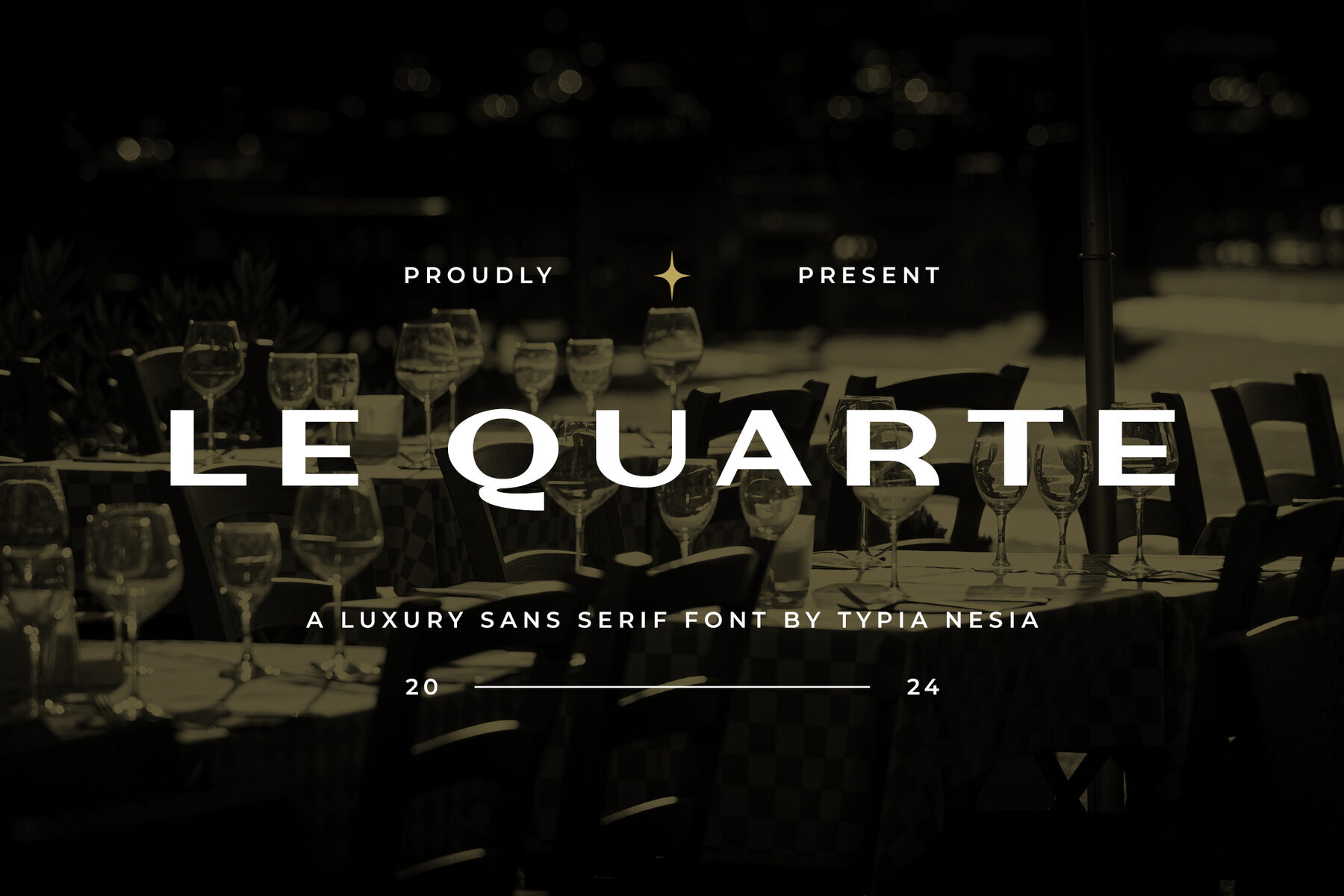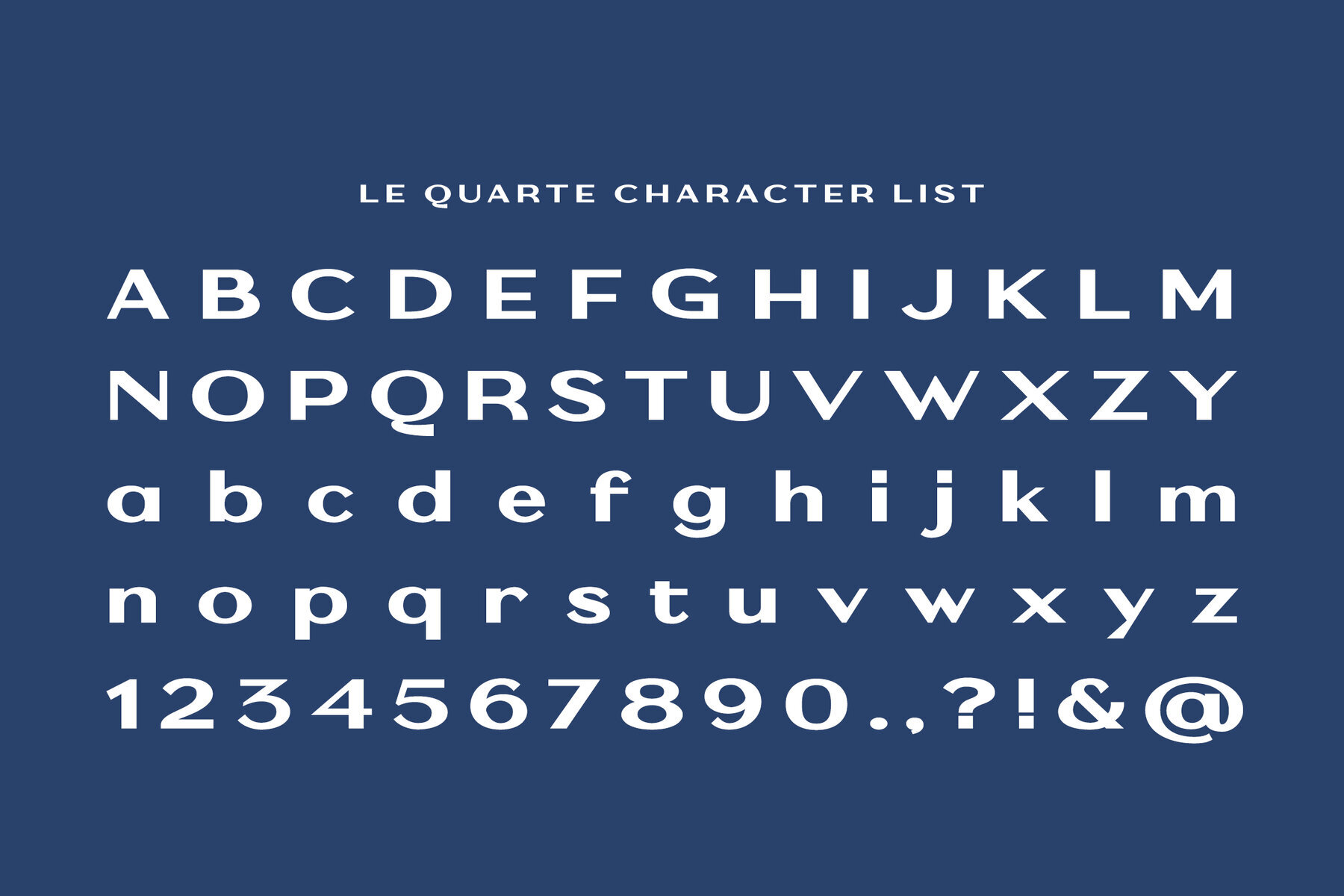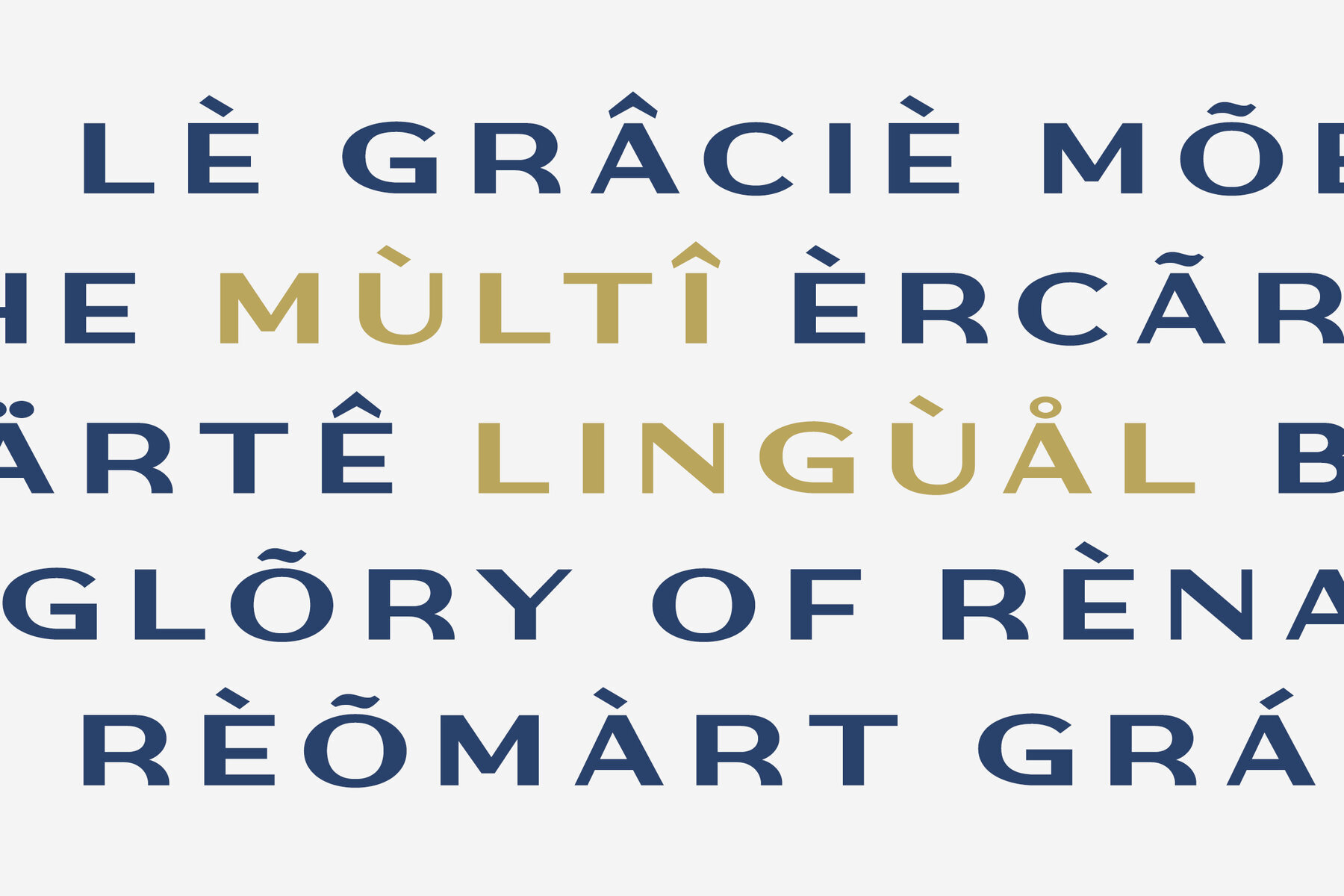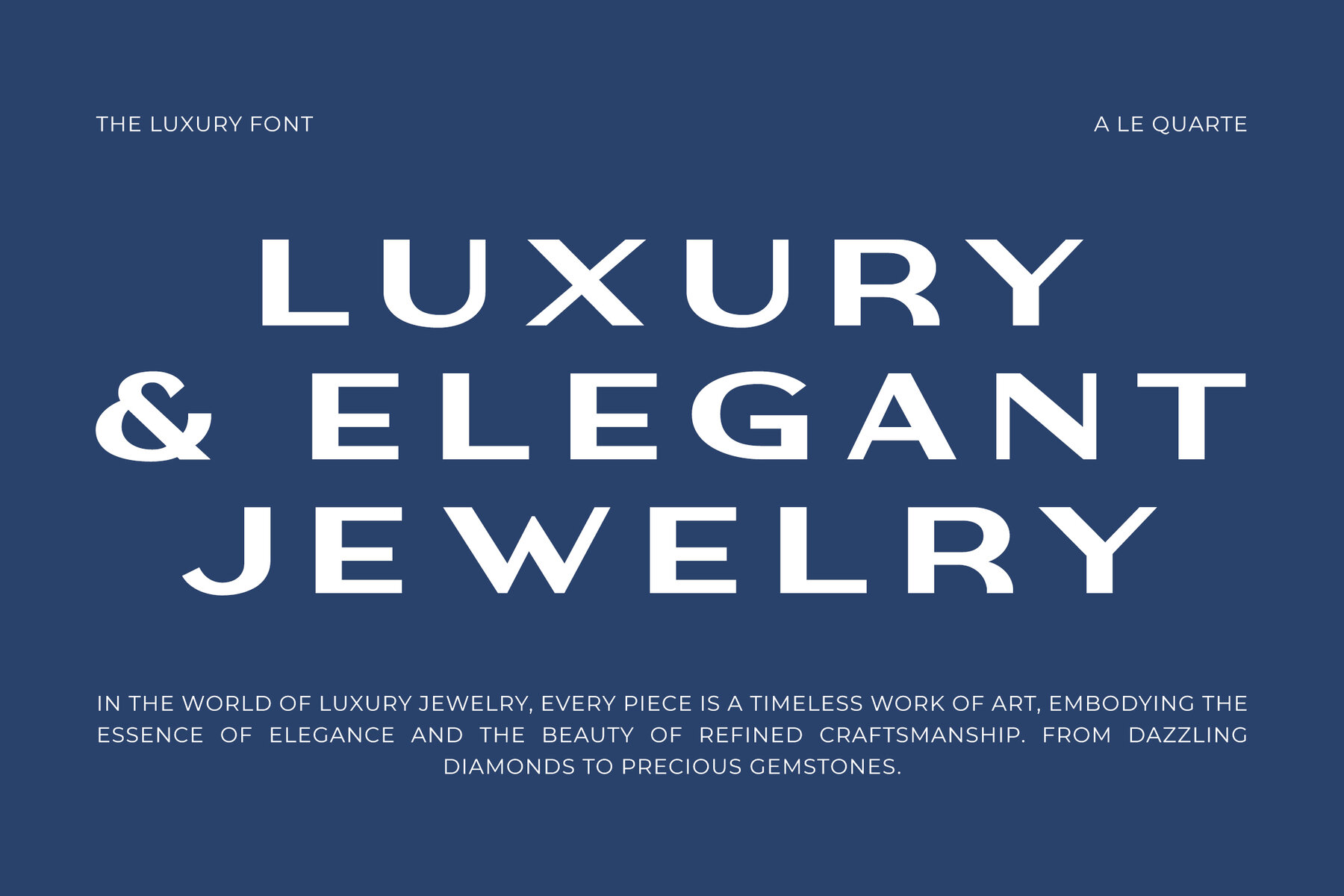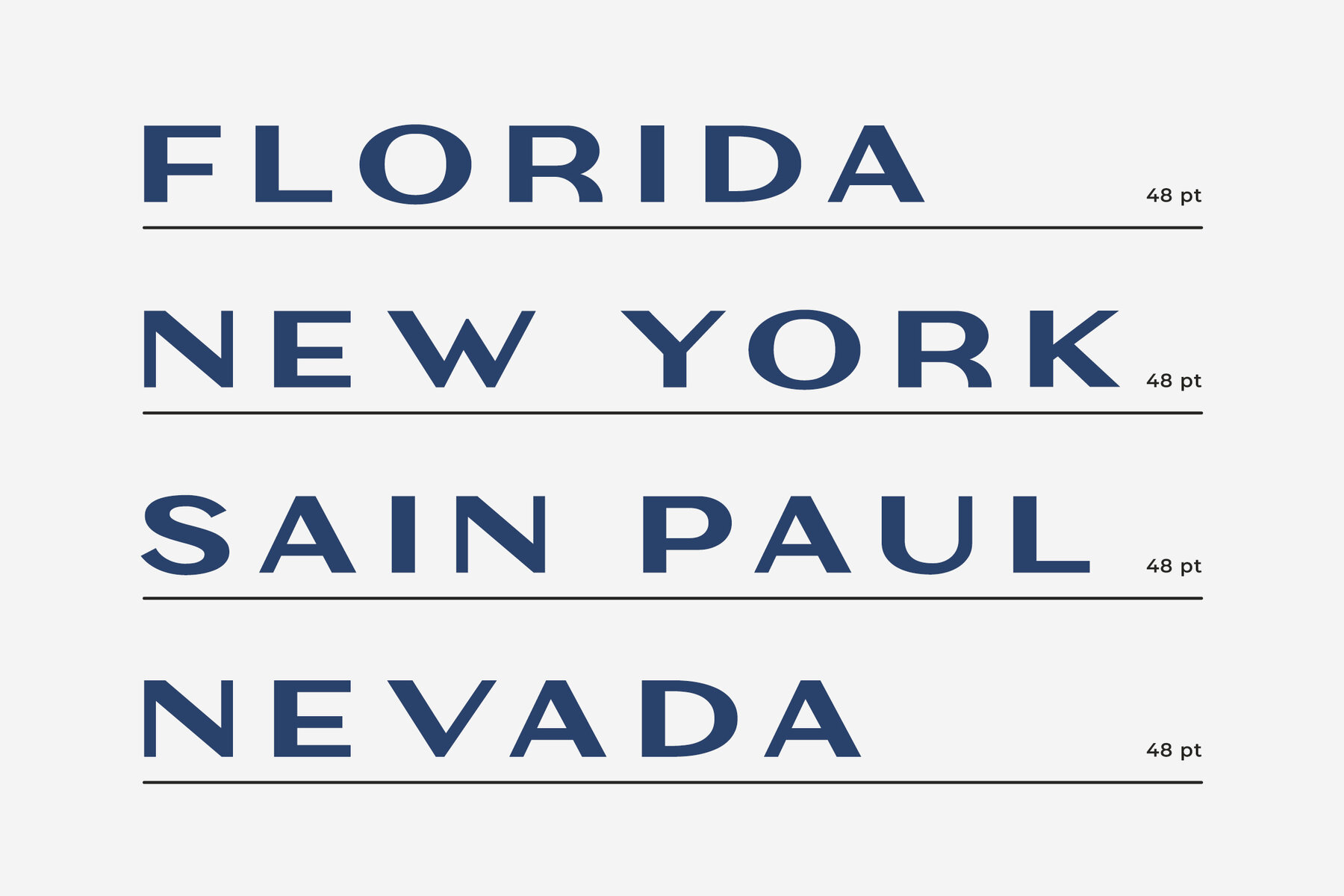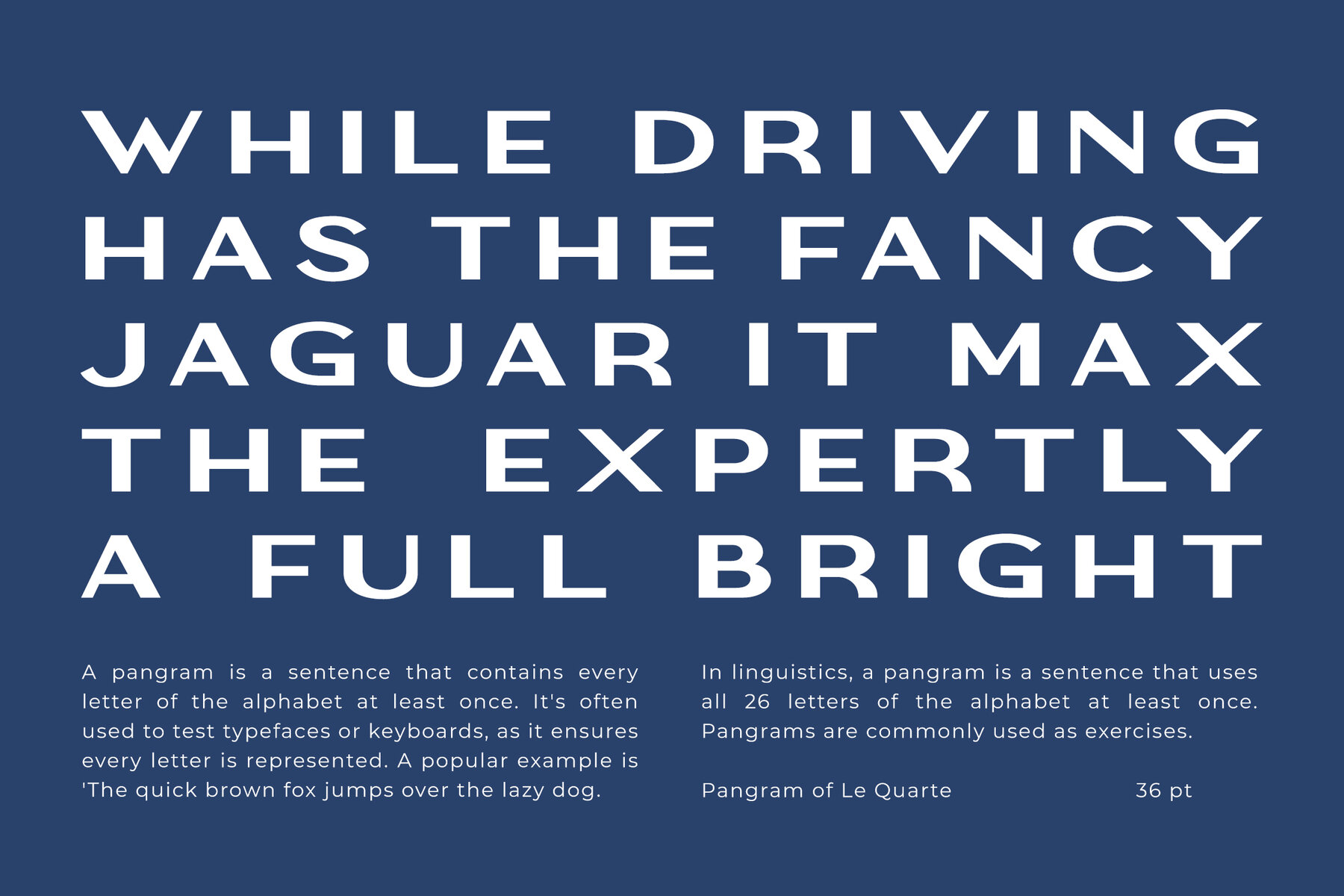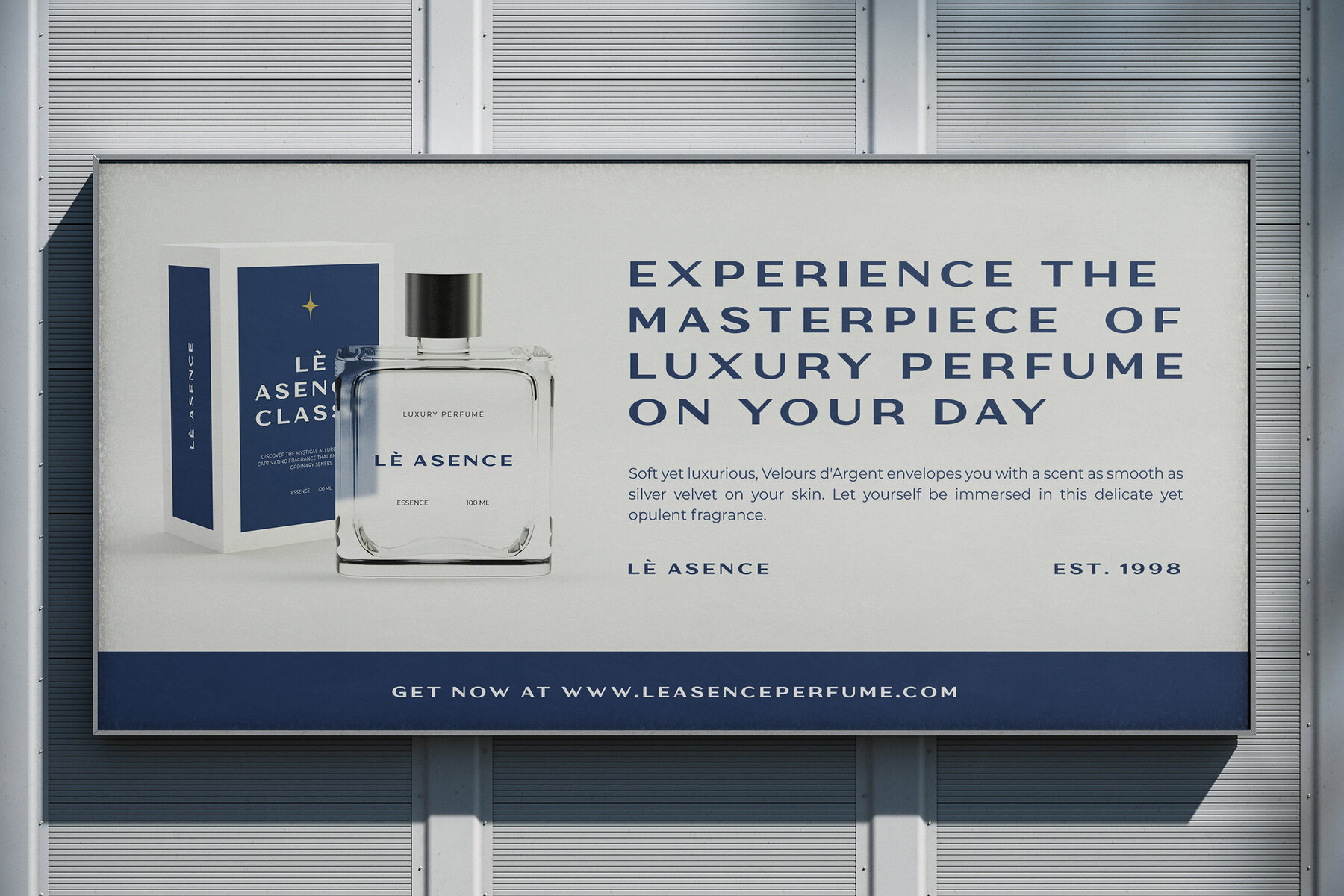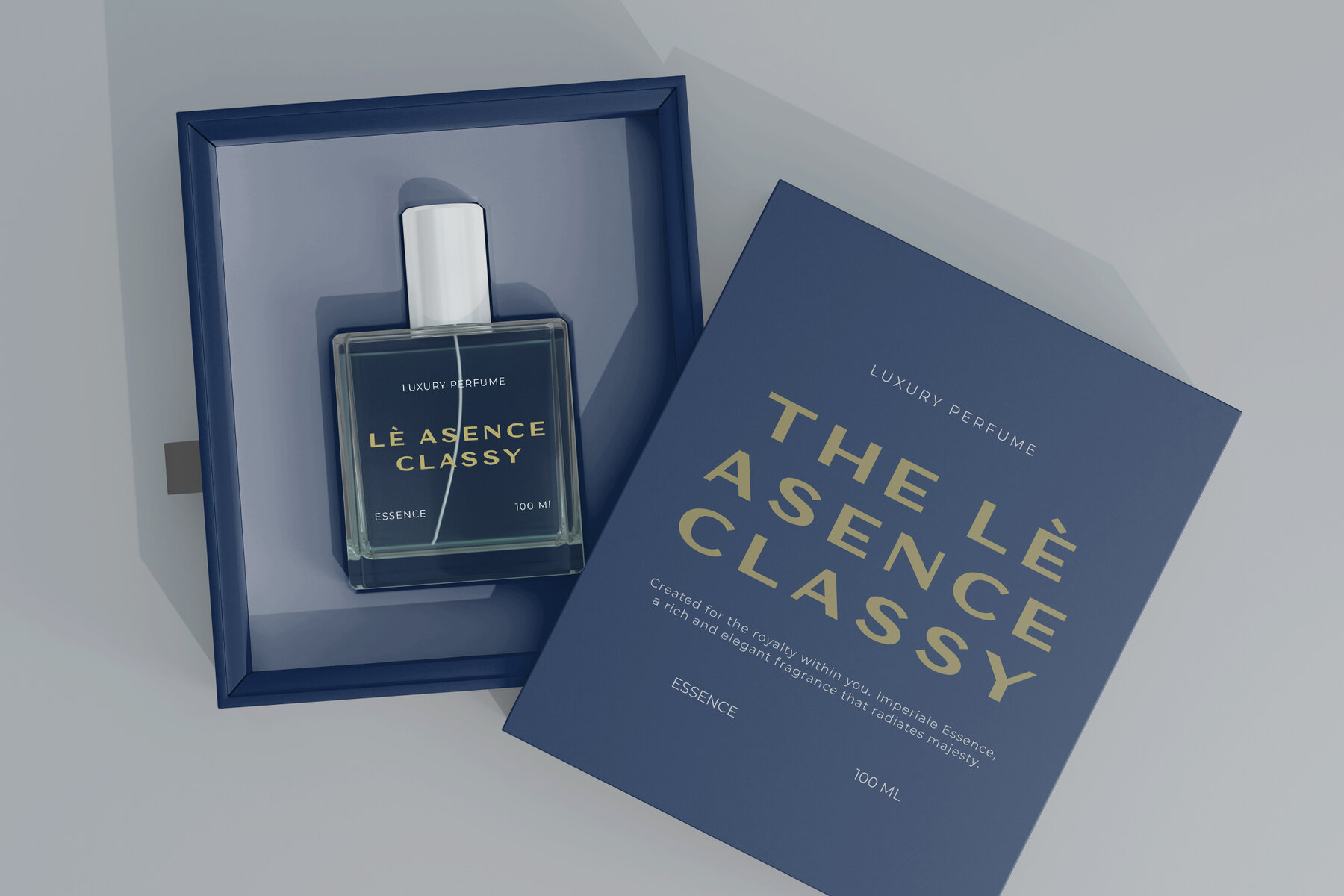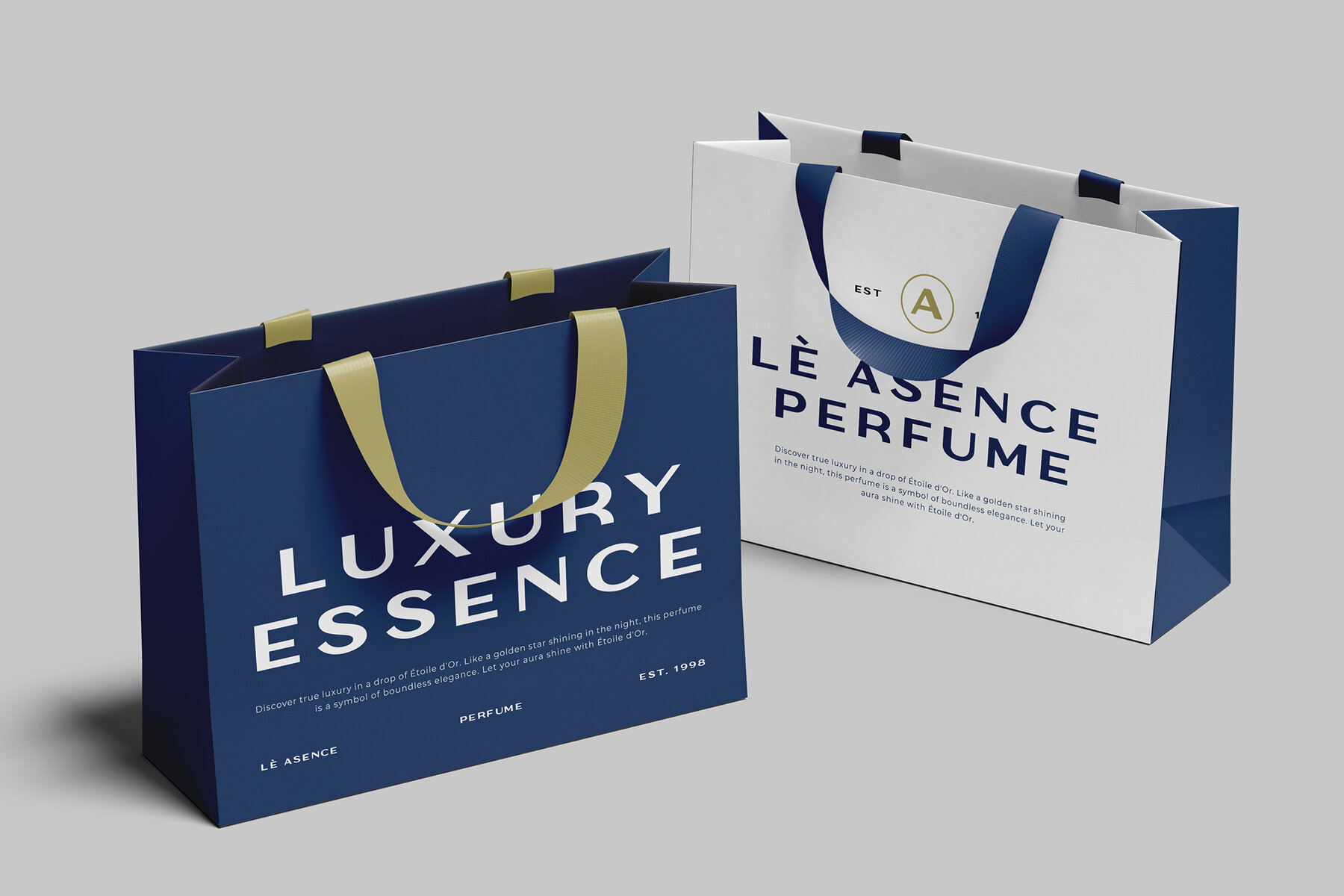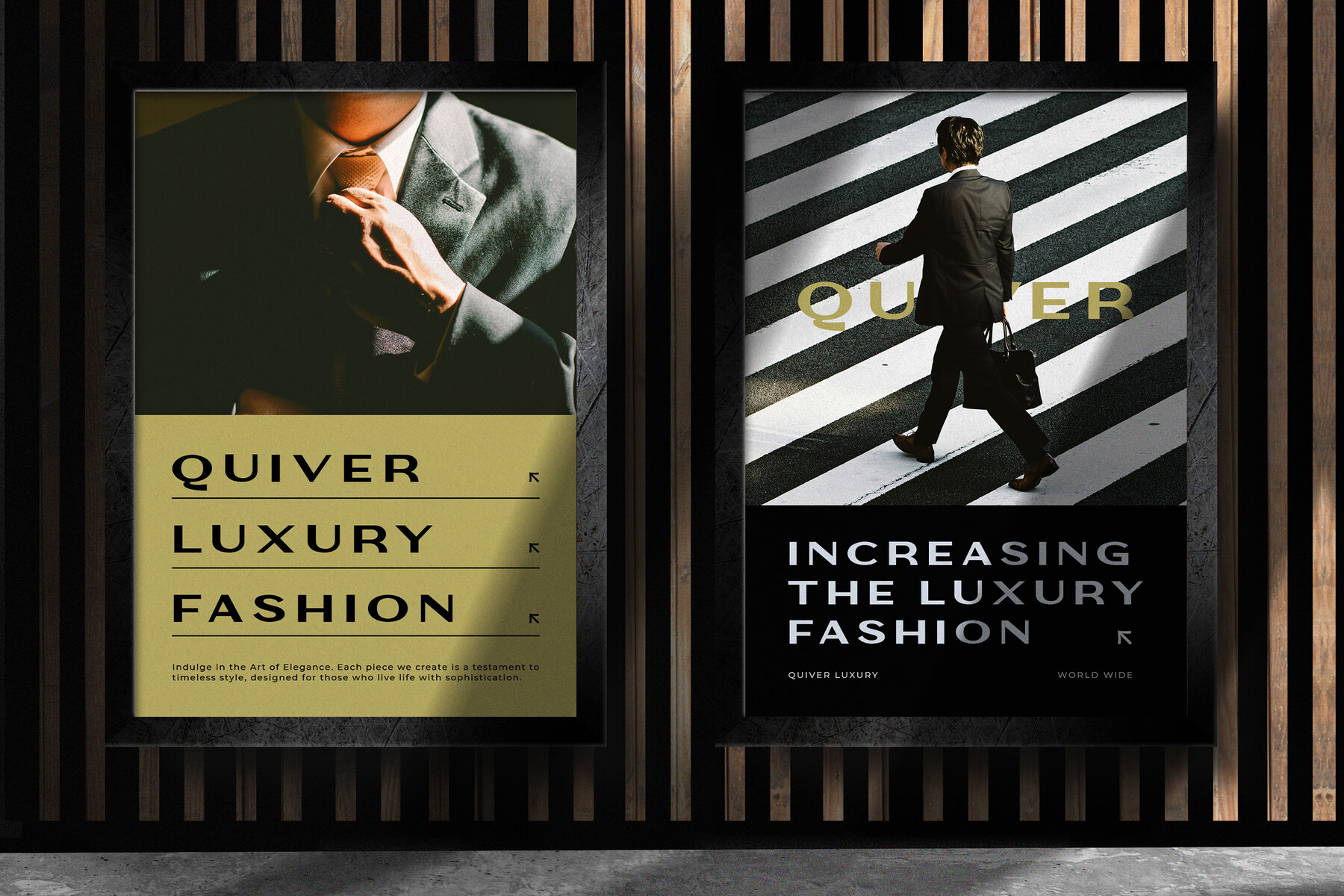
Le Quarte Font
Le Quarte is a luxurious sans serif font that seamlessly combines modernity with classic sophistication. Its expanded letterforms add an aura of confidence and grandiosity, making it an ideal choice for branding, headlines, posters, packaging, editorial layouts, website design, and luxury projects. With its refined aesthetic, Le Quarte is perfectly suited for creating designs that demand elegance and a sense of superiority.
This versatile font includes uppercase and lowercase characters, punctuation, numerals, ligatures, alternates, and robust multilingual support, making it adaptable for global applications while retaining a distinctive appearance. Crafted with precision by skilled typographers, Le Quarte's expansive and luxurious design ensures your projects radiate a premium quality. Capture the essence of classic luxury with Le Quarte, and elevate your designs to new levels of sophistication.